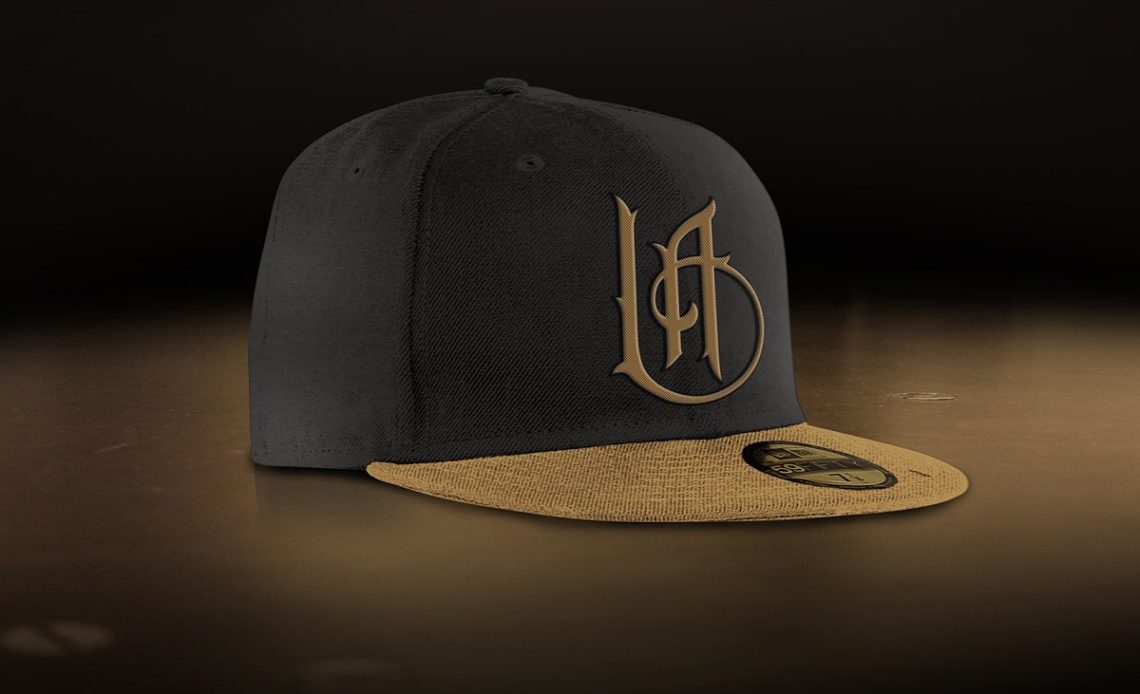
Introducing BaeSide Ornate Blackletter Font, a modern and stylish font designed by the talented Brian Smith. With its unique blackletter style, BaeSide is the perfect choice for tattoo shops, drink labels, clothing labels, and any other project that needs a touch of edgy elegance.
BaeSide comes complete with loads of alternates, ligatures, bonus flourish elements, and ornaments pulled from some of the capital letter forms. These features give you plenty of options to create custom designs that stand out from the crowd.
But what really sets BaeSide apart is its ornate flair. The alternate characters inside the font itself offer a level of sophistication that is hard to find in other fonts. With just a few clicks, you can transform any design into a work of art that is sure to impress.
One thing to note is that BaeSide is a single font with alternate characters inside the font itself. This means that you don't have to worry about managing multiple font files. And while the font is not multilingual, it does include all of the basic latin numbers and punctuation characters.
Overall, BaeSide Ornate Blackletter Font is a must-have for anyone looking to create stunning designs that grab attention. So why settle for a boring font when you can elevate your designs with BaeSide?